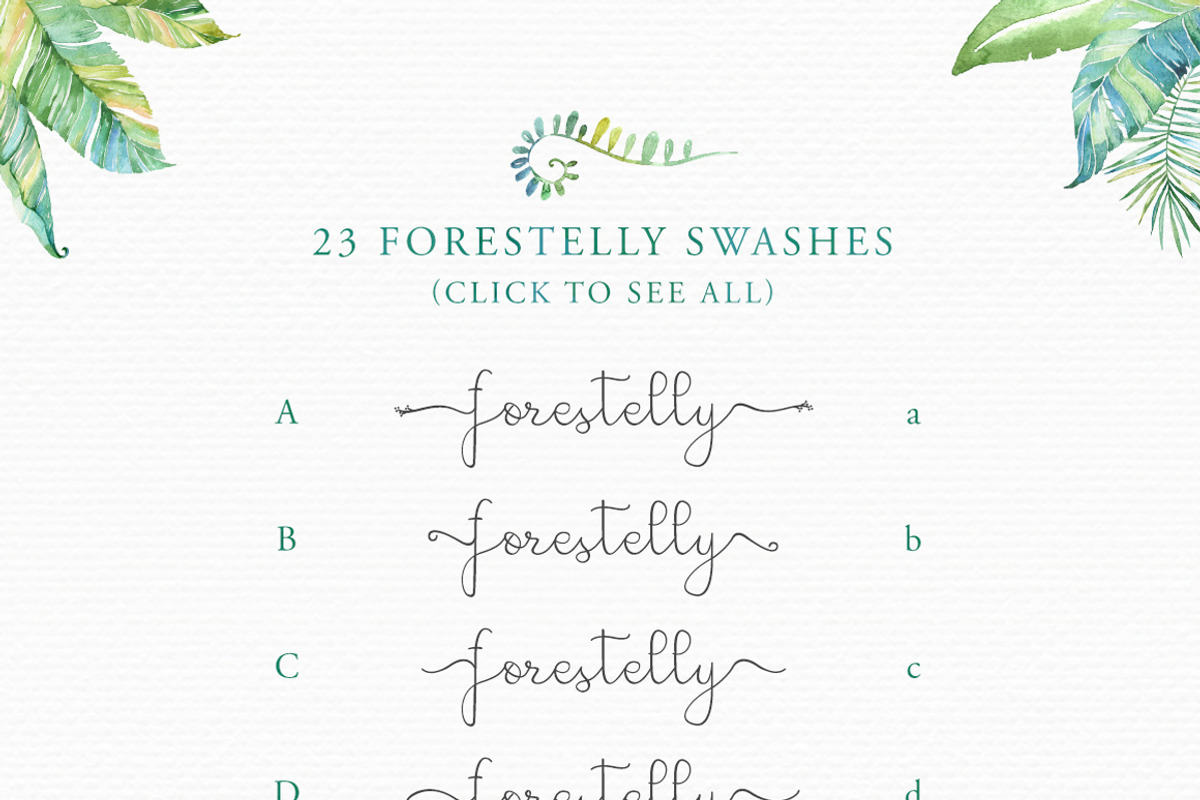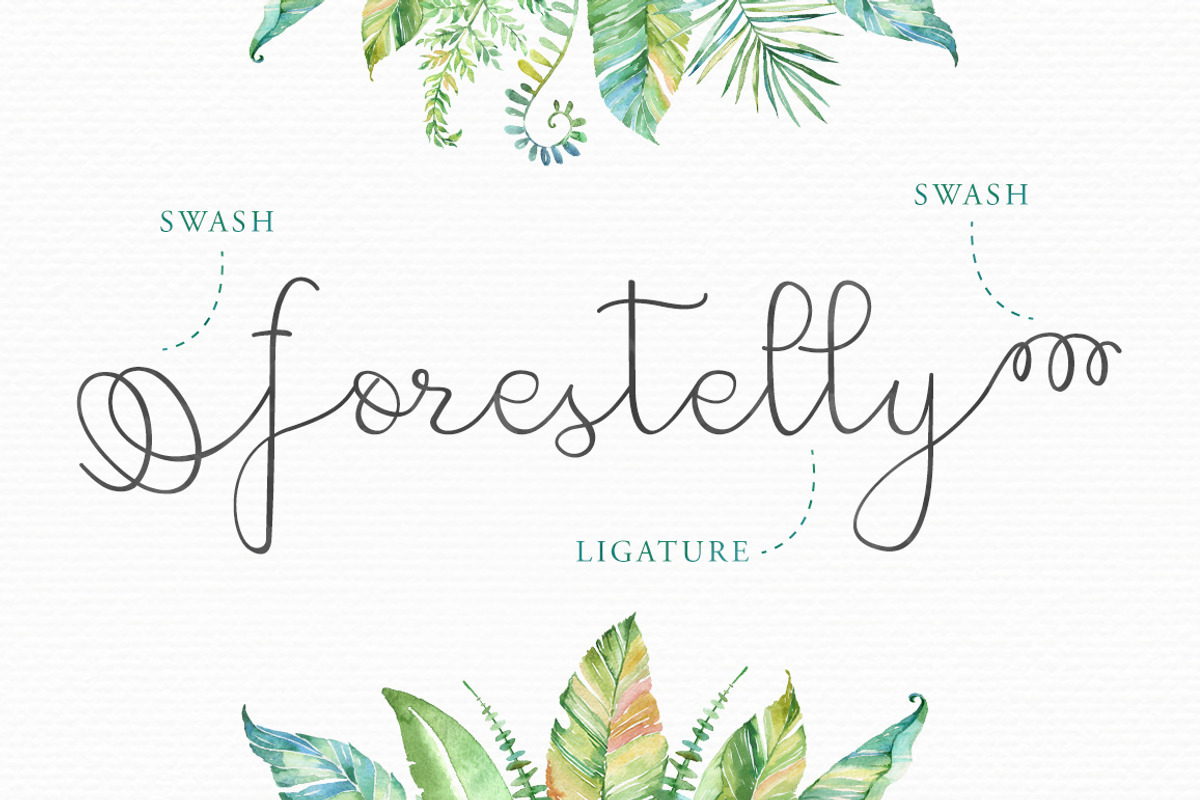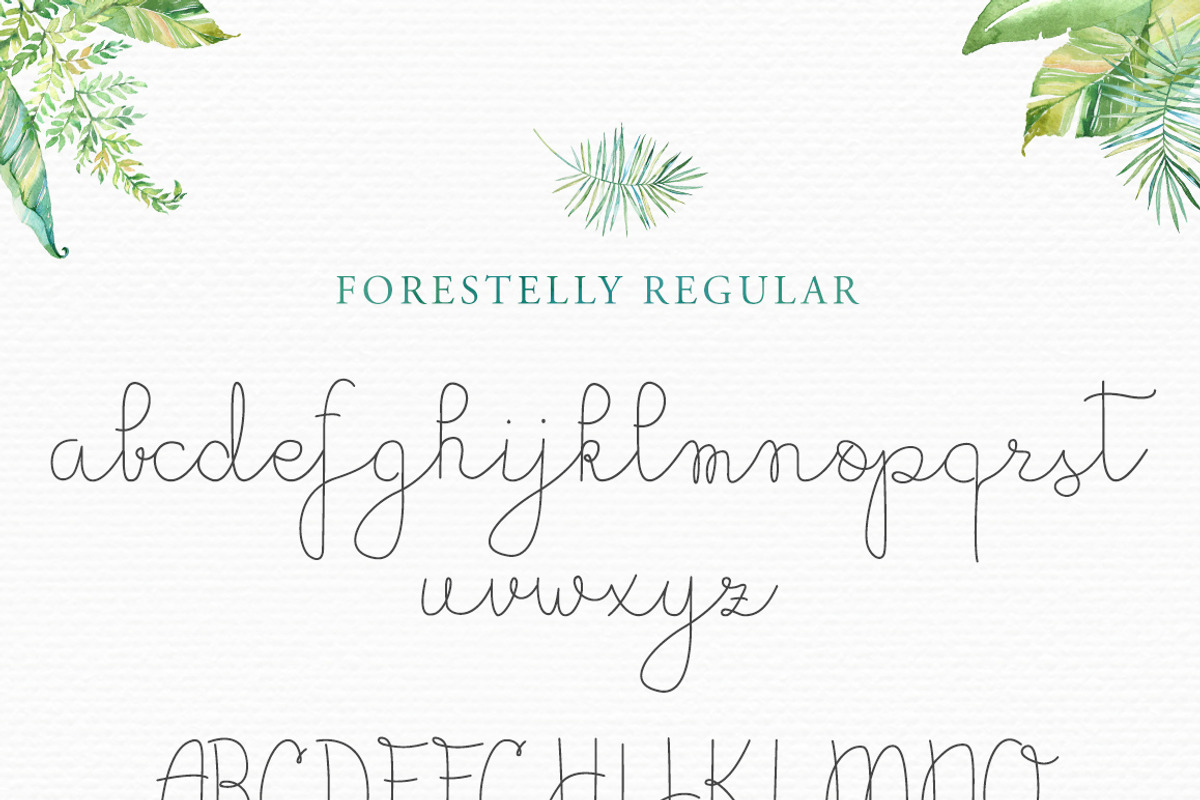
Forestelly familly + swashes
Forestelly familly + swashes by Rad Fonts is a font selected for branding, posters, packaging, typography.
- Open type features (in software like Illustrator, Indesign or Photoshop) come handy when you want to use ligatures though.
- Yes, both styles of Forestelly are full of ligatures like ff, th, tl, fl, mn, aa, bb, cc, dd, ee...
- Basically when there are 2 of the same letters next to each other, your software uses a ligature so those 2 letters looks not exactly the sa
Why Forestelly familly + swashes is worth a look
Forestelly familly + swashes by Rad Fonts fits naturally into Branding, posters, packaging, typography.